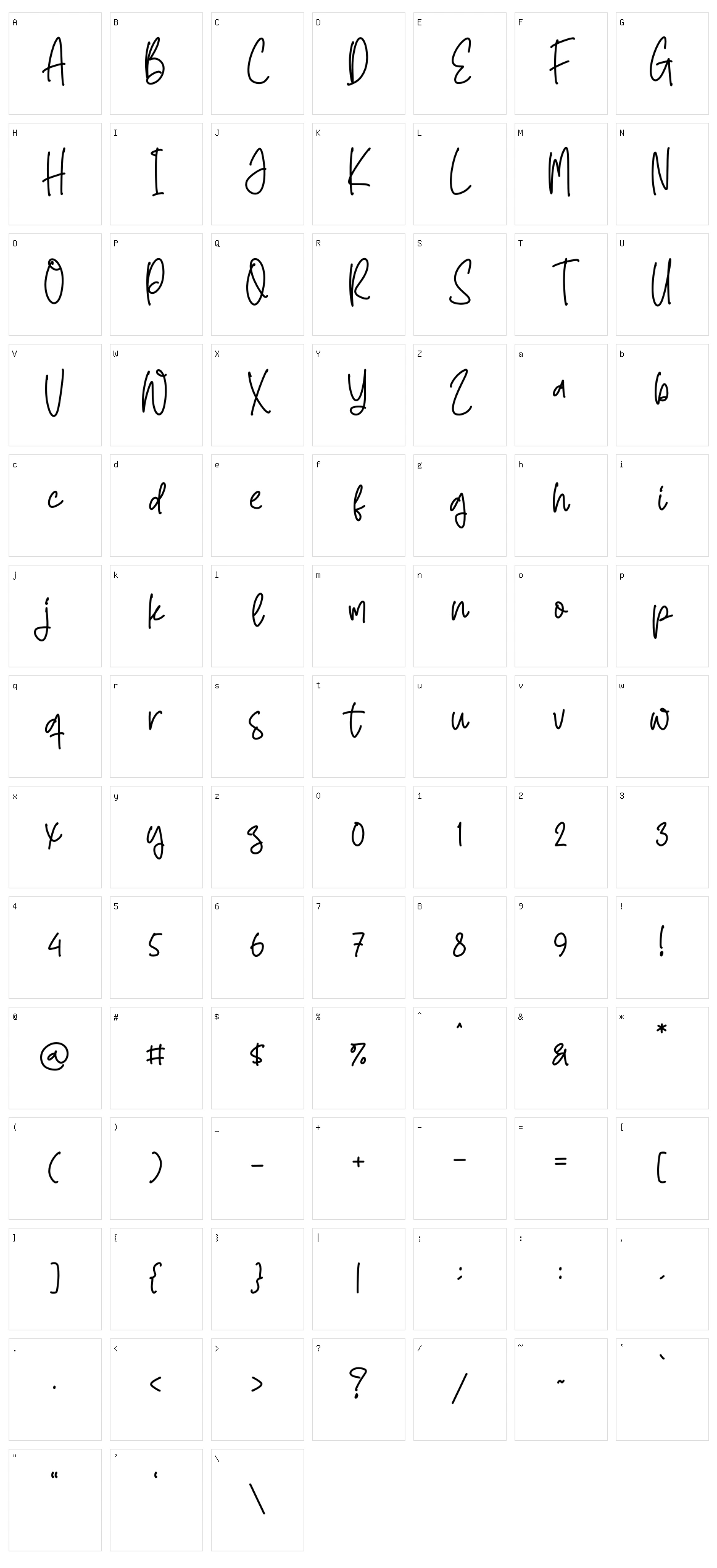
The free font Daily Handwritten is carefully designed by Letterena Studios, showcasing a thoughtful balance of creativity and usability and falls under the Script font style. When you download the ZIP file, it contains only 63.31 KB of font files, making it lightweight and quick to download. Please review the license details below to understand permitted usage and distribution rights. If license information is not available, we recommend using this font for personal projects only or contacting the author directly for commercial usage permissions.